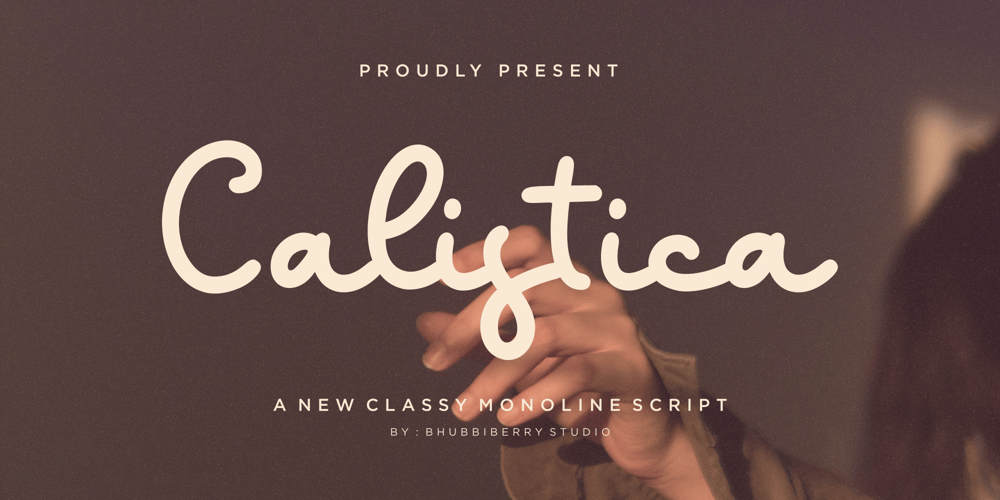
Calistica
Calistica font
Calistica Font Family was designed by Annas Rifky Anhar and published by Bhubbiberry Studio. Calistica contains 1 styles and family package options. Step into the world of timeless sophistication with Calistica; an exquisite Monoline Script Font that seamlessly blends modern sophistication with a hint of traditional elegance. Perfectly crafted to adorn intriguing product packaging, breathe life into your brand identity, embellish the polished pages of lifestyle magazines, or boost social media engagement, Calistica is equipped to revolutionize every application it’s applied to.With its perfect fit for wedding themes, Calistica beautifully scripts unforgettable moments or lends an emotively expressive touch to words suspended above a backdrop setting.